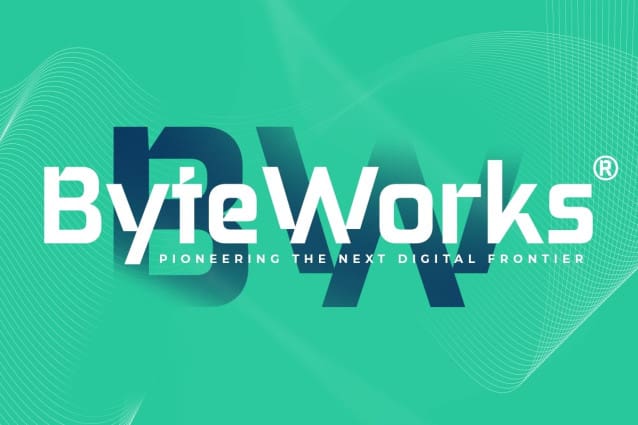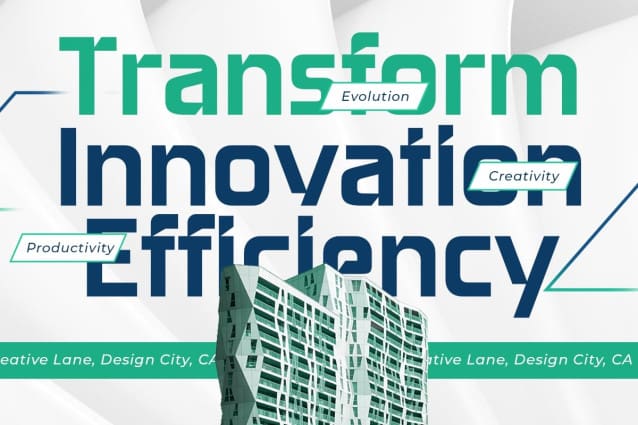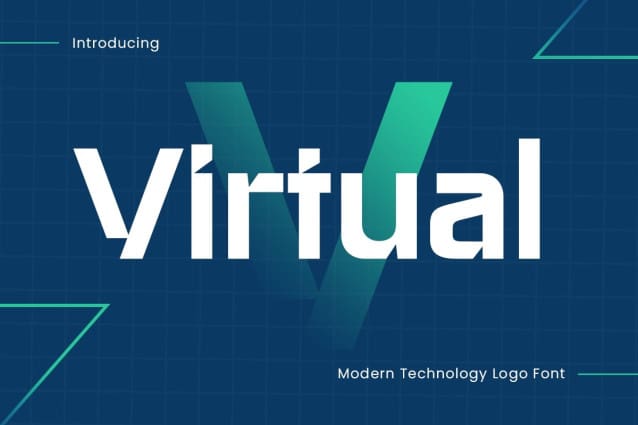
Virtual Futuristic Font
Virtual Futuristic Font is a modern tech logo font designed to bring a futuristic touch to your branding projects. Inspired by the clean lines of cutting-edge technologies, this font is perfect for logos, digital interfaces, and brands that demand a clean and innovative look. Virtual combines precision and creativity, making it ideal for tech companies, startups, or futuristic projects.
Virtual Futuristic was inspired by the desire to encapsulate the dynamic and ever-changing world of technology. Its strong and clear letters are designed to be legible while maintaining a distinct high-tech style. Whether you are working on an App interface, a technology product logo or digital media design, Virtual ensures that your project is polished and professional.
With its unique technological characters and multilingual support, Virtual easily adapts to different design needs. It offers flexibility in punctuation, numbers, symbols and alternate characters, providing a range of creative options for your logo and branding work.